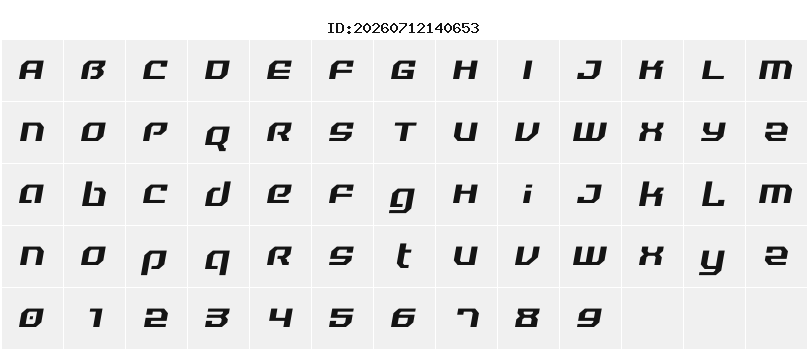
• Font Name: Reality Hyper
• Designer: GrandChaos9000
About Reality Hyper.ttf
Reality Hyper.ttf is a modern, elegant sans-serif font designed for ultimate readability and visual harmony. Perfect for branding, headlines, web design, and print materials.